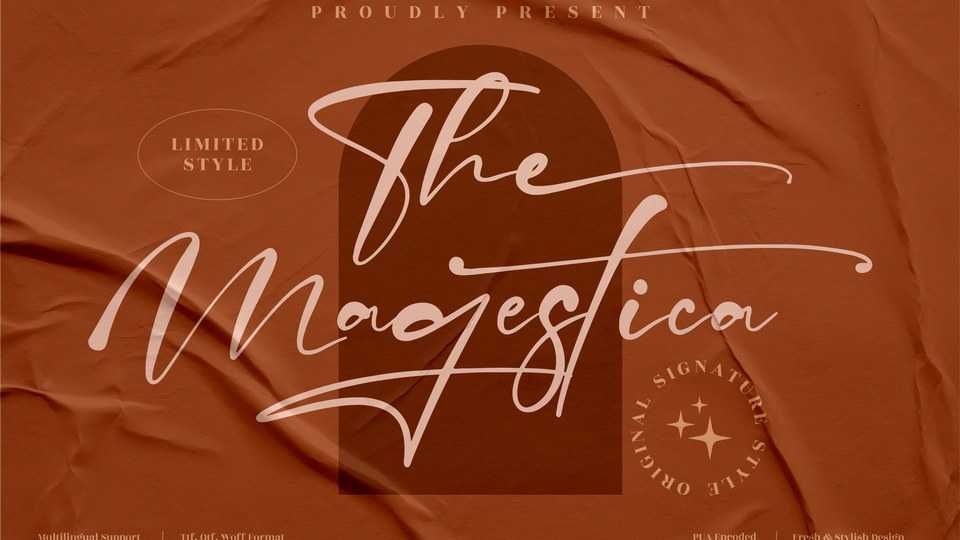
Download The Magestica font, a superb script typeface that looks naturally charming and authentic. The Magestica is perfect for wedding invitations, birthday cards, and other projects that need a personal note.
Designer: Perspectype Studio